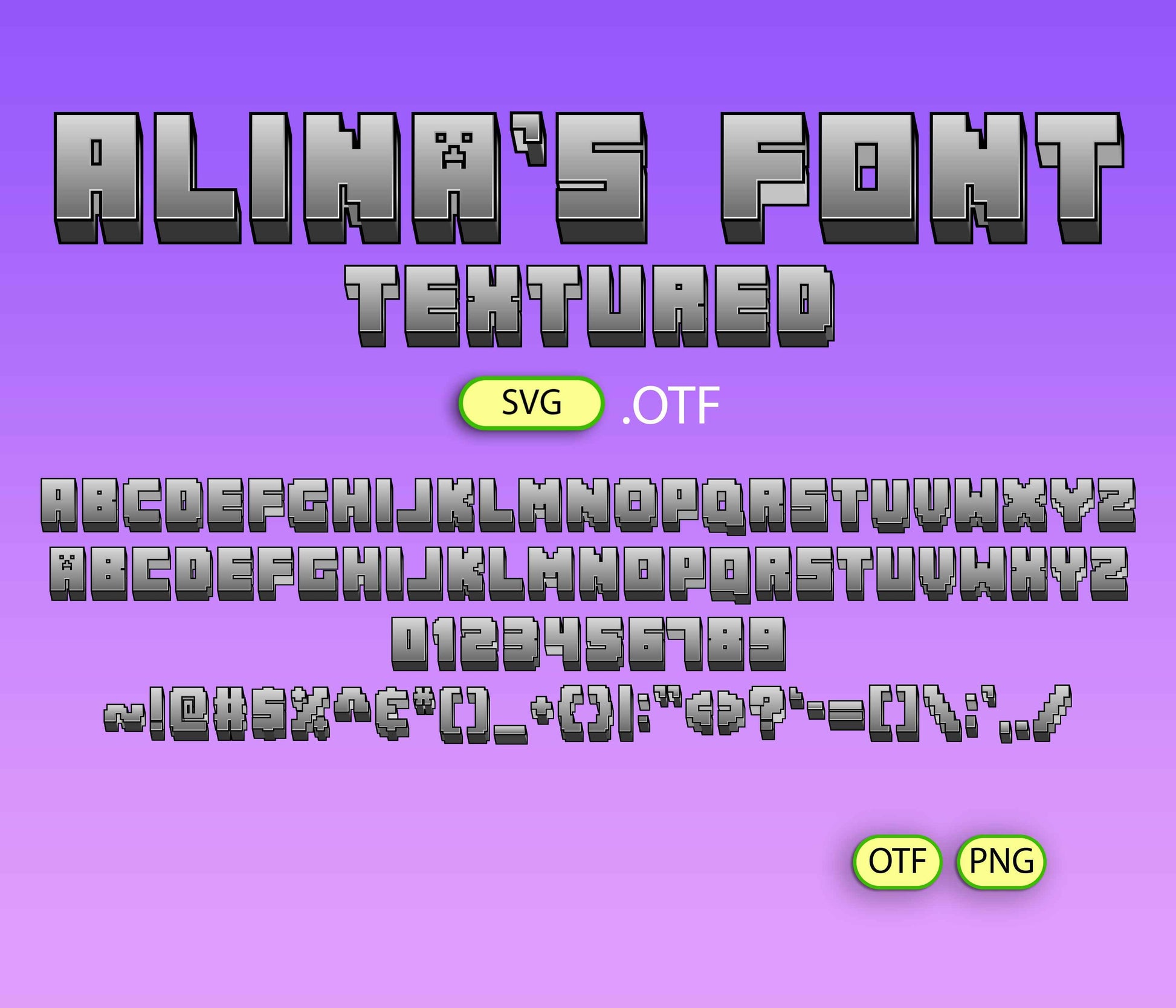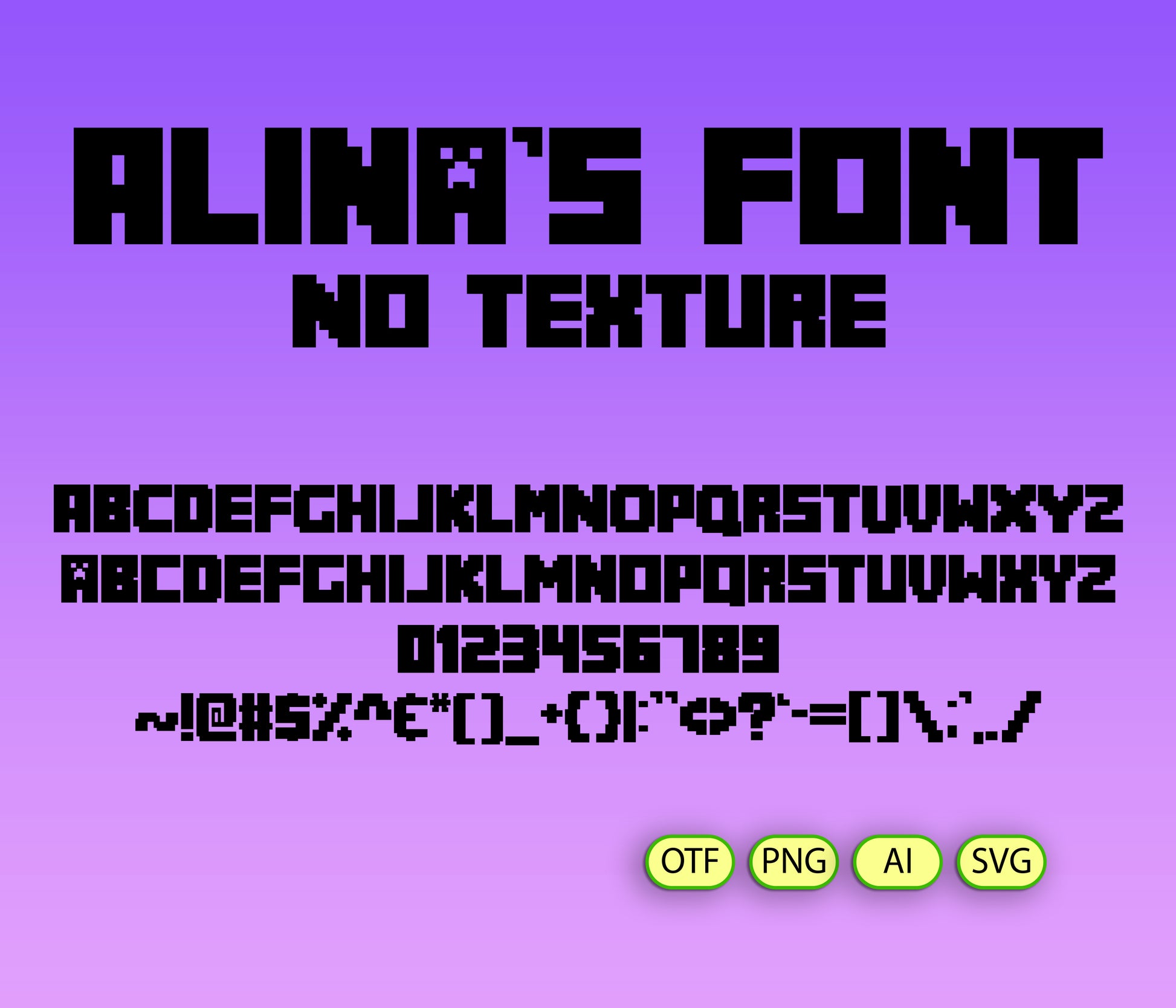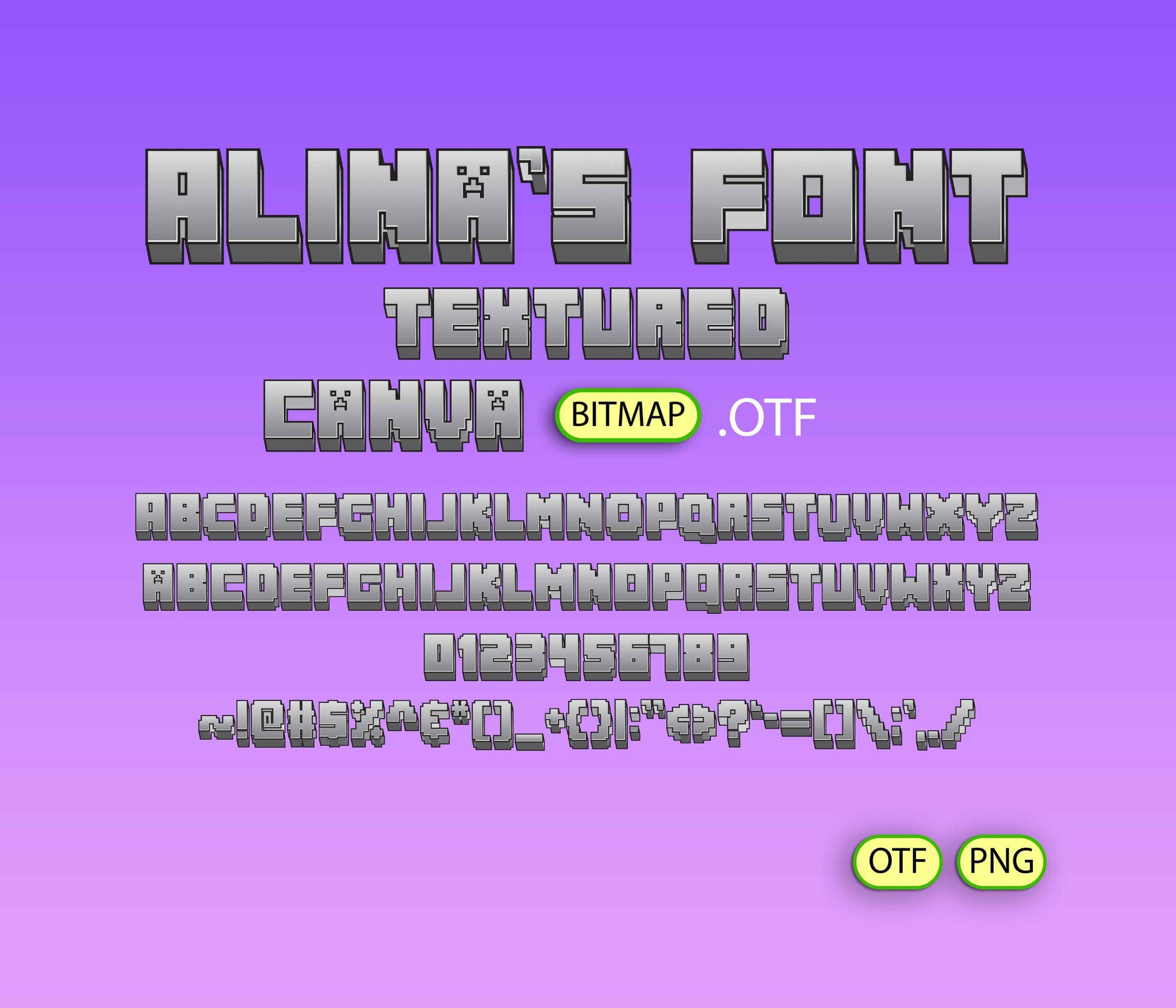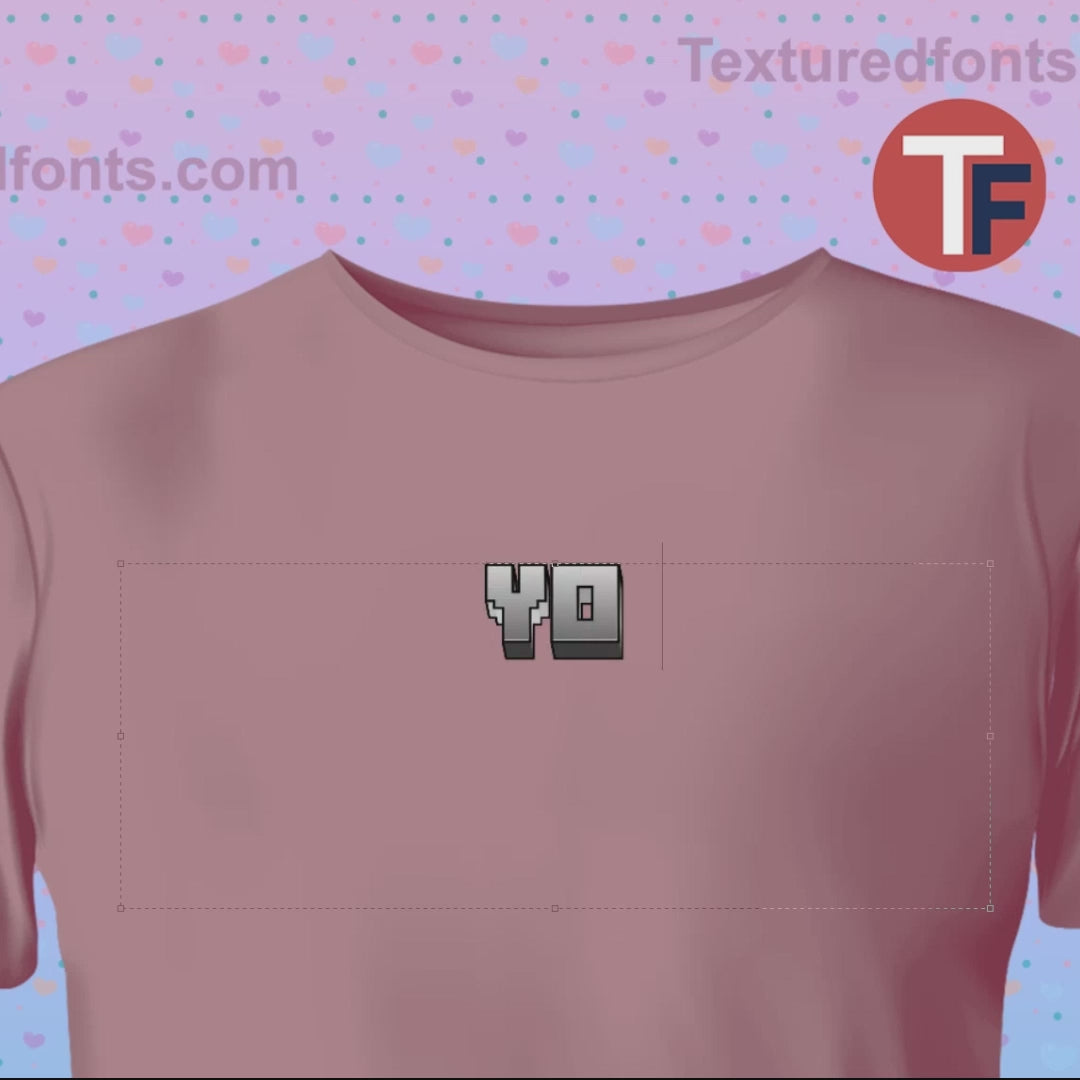
CraftBlock Font Textured
Build Your Creative World with the CraftBlock Font
Step into the pixelated universe of CraftBlock with our CraftBlock-inspired font, designed to capture the essence of this iconic sandbox game. Ideal for fans, game developers, and content creators, this font brings the distinctive blocky and digital aesthetic of CraftBlock to your projects, enhancing them with a touch of gaming nostalgia and creativity.
Our CraftBlock-inspired font features a square, block-like structure that mirrors the game’s voxel-based design. With its clean lines and geometric simplicity, this font is well-suited for a wide range of applications:
- Gaming Content: Enhance UI/UX designs, game guides, or promotional materials for CraftBlock-related content.
- Event Promotion: Create eye-catching materials for gaming conventions, tournaments, or CraftBlock meet-ups.
- Digital Media: Use for dynamic titles and headers on gaming blogs, YouTube channels, or Twitch streams.
- Educational Materials: Craft engaging presentations or projects for STEM education, leveraging CraftBlock's appeal in learning environments.
- Merchandising: Design appealing apparel, stationery, and accessories that resonate with CraftBlock fans.
Many people seek out a CraftBlock Font generator online to mimic the look of the CraftBlock Font. Steer clear! No font generator can match the quality of this CraftBlock Font, which comes in two versatile versions: a textured colored CraftBlock font and a simple CraftBlock font. This is particularly beneficial if you plan to use it with a cutting machine.
Our CraftBlock font not only pays homage to the game’s unique style but also enables you to infuse your designs with the spirit of exploration and innovation that defines CraftBlock. Whether you’re creating promotional content, designing merchandise, or adding a gaming element to educational resources, this font helps you convey messages with the iconic look that millions of CraftBlock players love. Ready to pixelate your creative projects? This font is your tool to build a visually engaging and instantly recognizable connection to the world of CraftBlock.